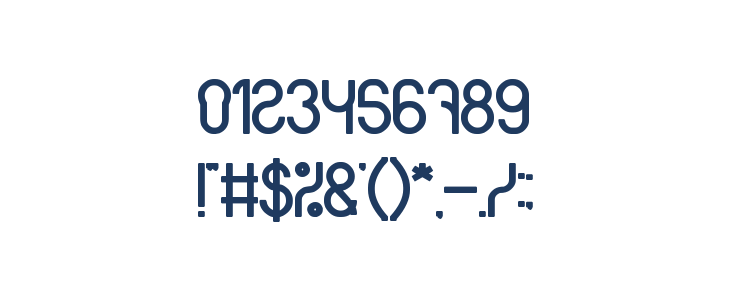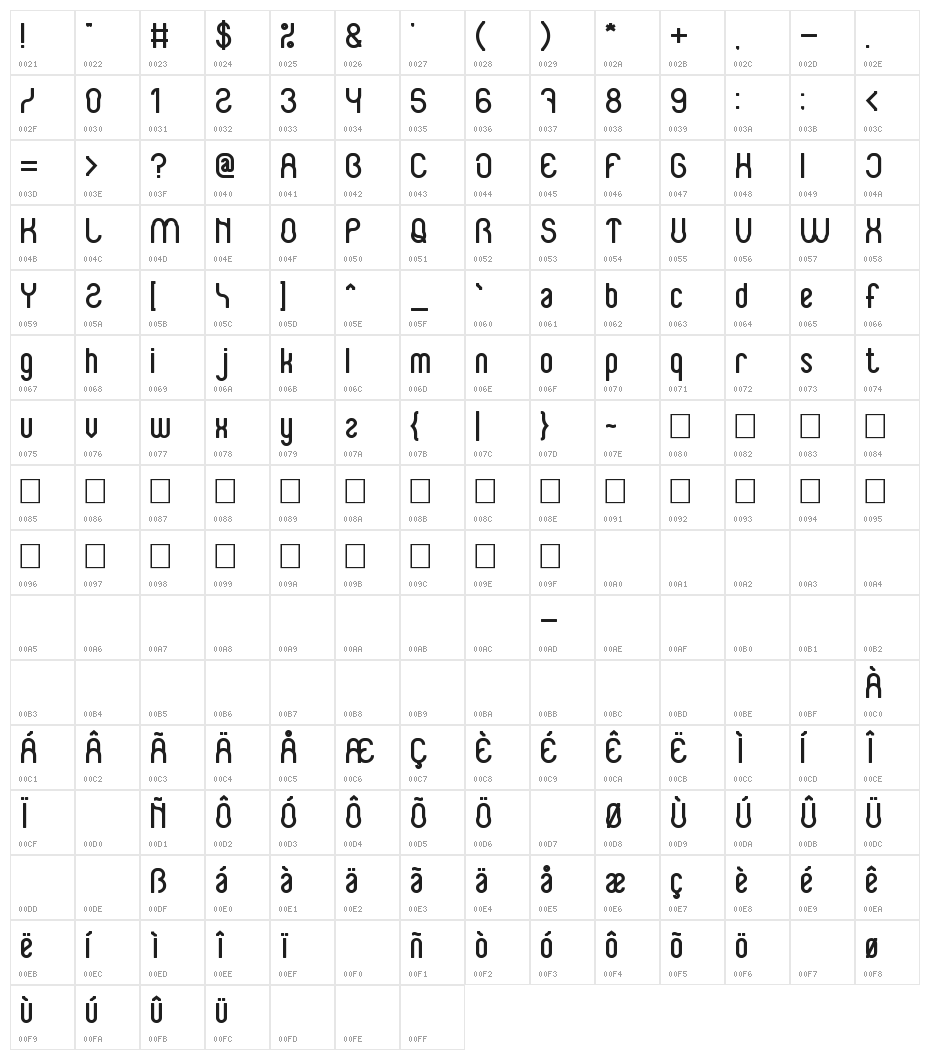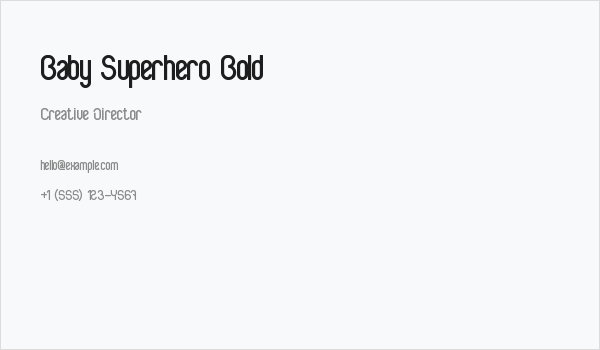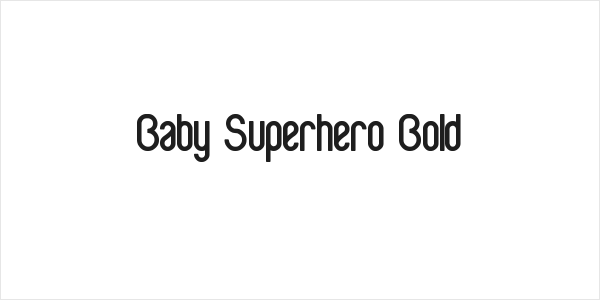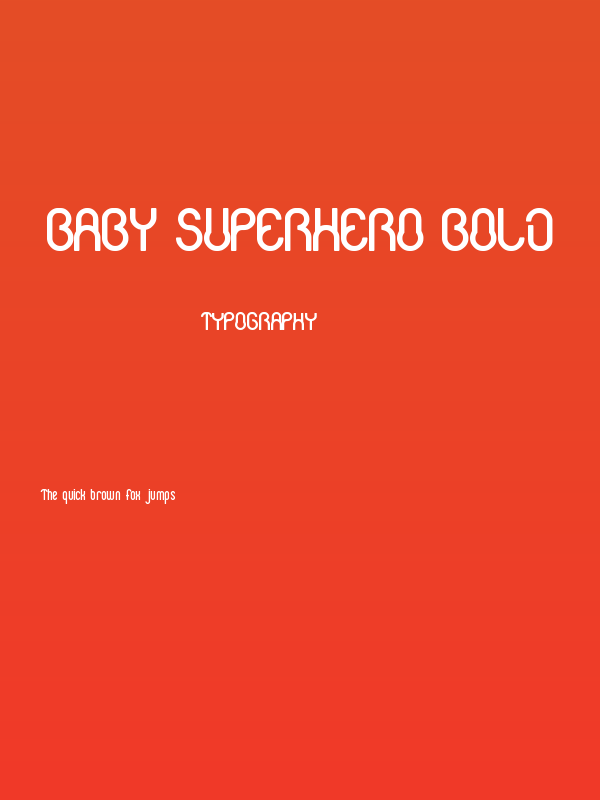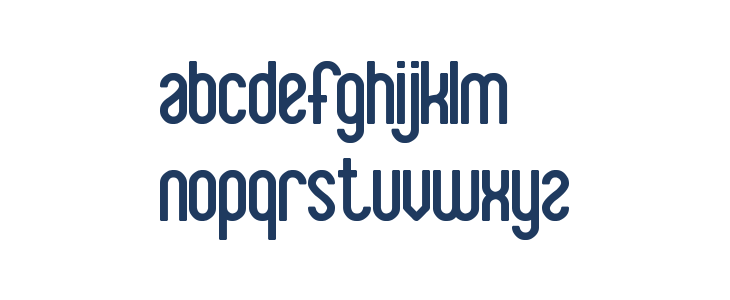
Baby Superhero Bold Font
Baby Superhero Bold Description
This font features a bold and playful design with rounded edges and a consistent stroke width, giving it a friendly and approachable appearance. The uppercase and lowercase letters maintain a uniform height, contributing to a cohesive look. The numerals and special characters are designed to match the overall style, ensuring visual harmony across all elements. Its geometric structure and smooth curves make it suitable for a variety of creative applications. The font's boldness enhances readability while adding a touch of modern flair.
Proposed ProjectsIdeal for children's books, comic strips, playful branding, and eye-catching posters.